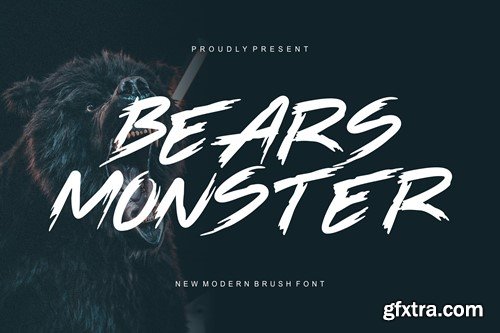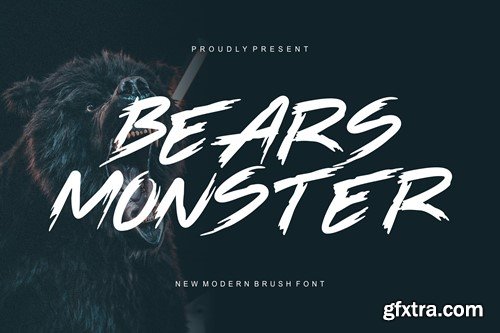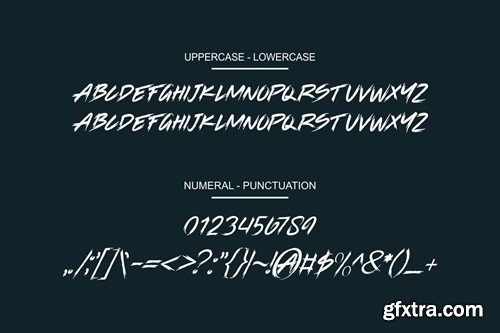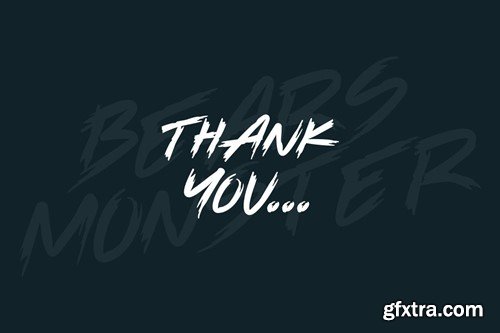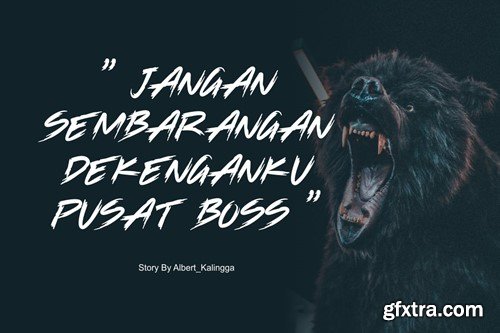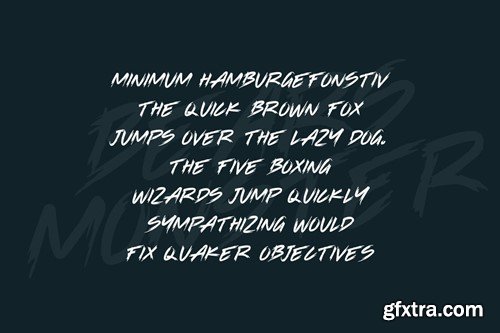
贝尔斯怪物字体F6PAT7F
Bears Monster Font
Introducing our new product Bears Monster Font - Modern Font is a bold and authentic display font. The font is suitable for any branding project like logo, esport, and many more. outstanding in a wide range of contexts. availlable